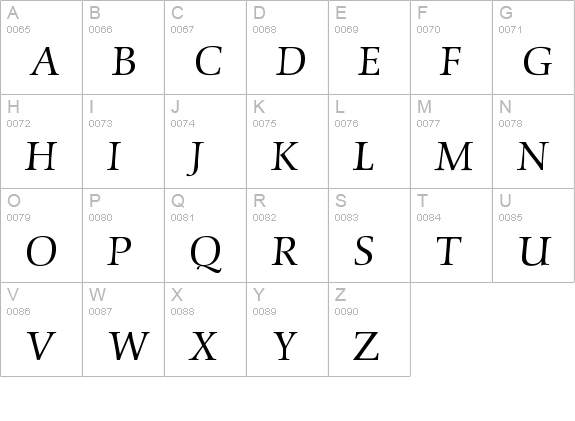
Schneider-Antiqua Exp Light Italic is a refined, elegant, italic variant in the Schneider typeface family \xE2\x80\x94 well suited to elegant body text, refined sub-headings, and luxury branding.
Schneider-Antiqua Exp Light Italic font is a stunning typographical masterpiece that embodies elegance and sophistication. Its delicate curves and graceful strokes exude a sense of refinement and style, making it the perfect choice for projects that require a touch of class. Designed with meticulous attention to detail, Schneider-Antiqua Exp Light Italic font captures the essence of timeless beauty. The carefully crafted letterforms effortlessly blend traditional elements with a contemporary twist, resulting in a typeface that is both captivating and versatile. The light italic variant of Schneider-Antiqua Exp adds a touch of subtle emphasis to any text, making it ideal for headings, titles, and captions. Its slanted nature adds a sense of dynamic movement, lending a unique flair to your designs. One of the most remarkable aspects of Schneider-Antiqua Exp Light Italic font is that it is freely available to download at FontsMarket.com. This means that you can easily access this exquisite typeface without any cost, allowing you to elevate your design projects without breaking the bank. Whether you are designing a wedding invitation, a book cover, or a branding project, Schneider-Antiqua Exp Light Italic font will elevate your work to new heights. Its timeless appeal and versatility make it a must-have for any designer or typographer seeking to make a lasting impression. Experience the beauty of Schneider-Antiqua Exp Light Italic font and let it bring your designs to life. Download it for free at FontsMarket.com and unlock the endless creative possibilities it has to offer.